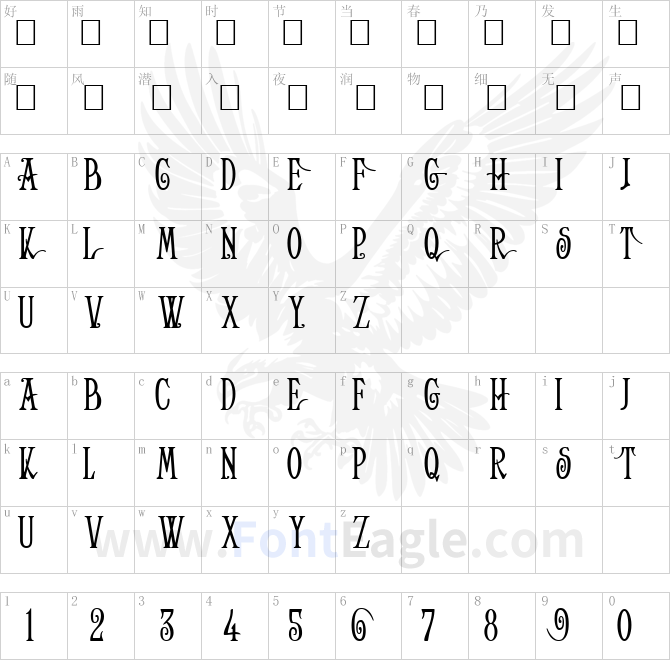
- Font name:Helena-Wide
Helena-Wide is a great font, widely used in graphic design, single-page menu design, poster design and other fields, and is deeply loved by designers.Helena-Wide download.